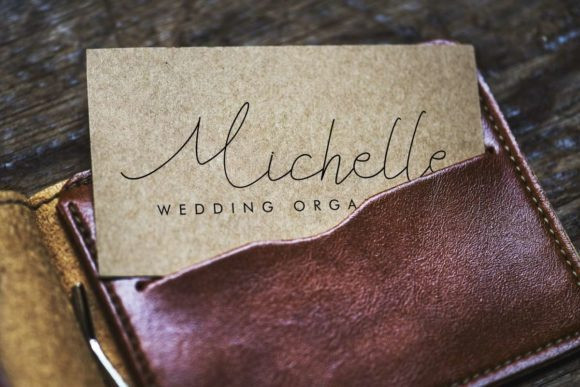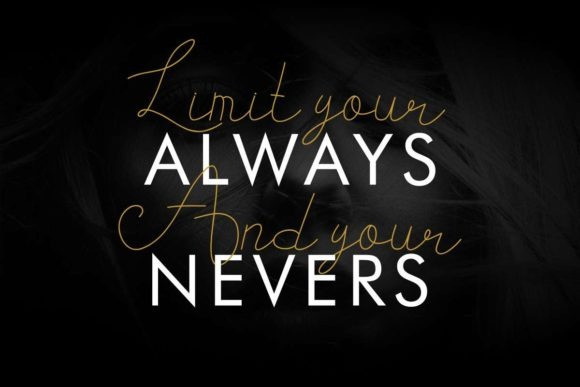
Blisk Orage Font
Blisk Orage Font – A Modern Handwritten Script, from Operatype, perfect for any project like: logos, branding projects, homewares designs, product packaging, mugs, quotes, posters, shopping bags, t-shirts, covers books, business cards, invitation cards, greeting cards, labels, photography, watermarks, special events and all your other luxury projects that require a premium taste.